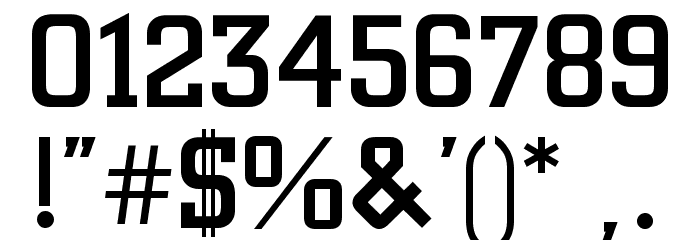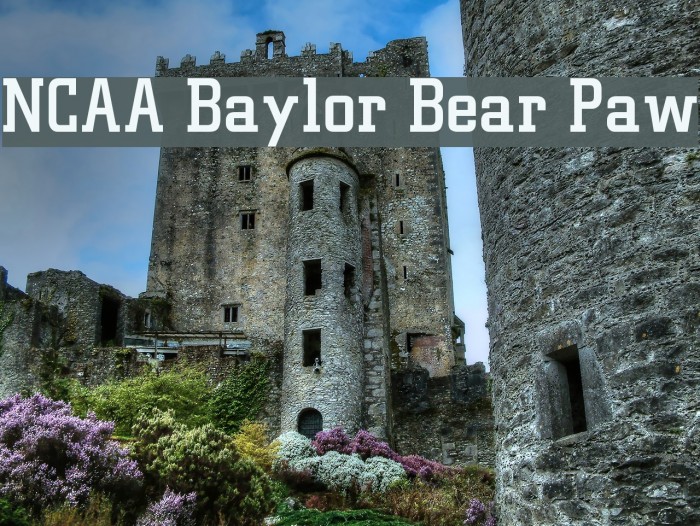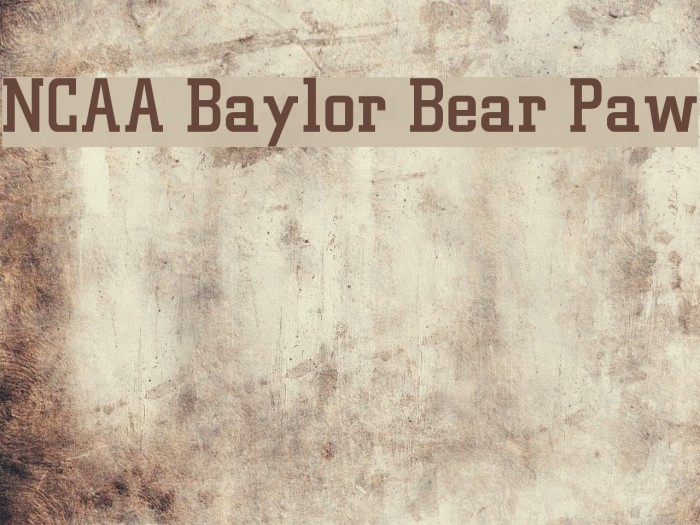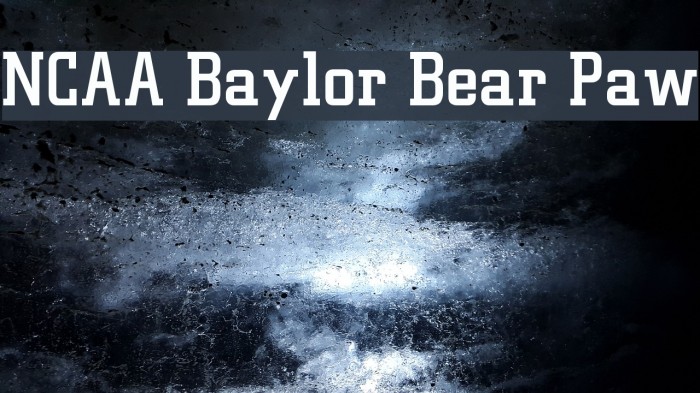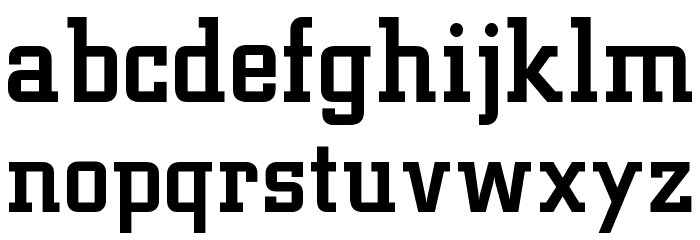
NCAA Baylor Bear Paw Font
This font features a bold and assertive style with a strong presence. The uppercase letters are characterized by their blocky, geometric shapes, while the lowercase letters maintain a consistent width, offering a harmonious balance. The numerals are equally robust, ensuring clarity and readability. Special characters are designed to complement the overall aesthetic, making them suitable for various applications. The font's design is modern yet retains a classic touch, making it versatile for both contemporary and traditional projects.
A bold, geometric font with a modern yet classic style.
• Proposed Projects: Ideal for sports branding, posters, headlines, and logos that require a strong visual impact.
• Category: Slab Serif
• Overall Style: Modern
• Use Case: Headlines, Logos